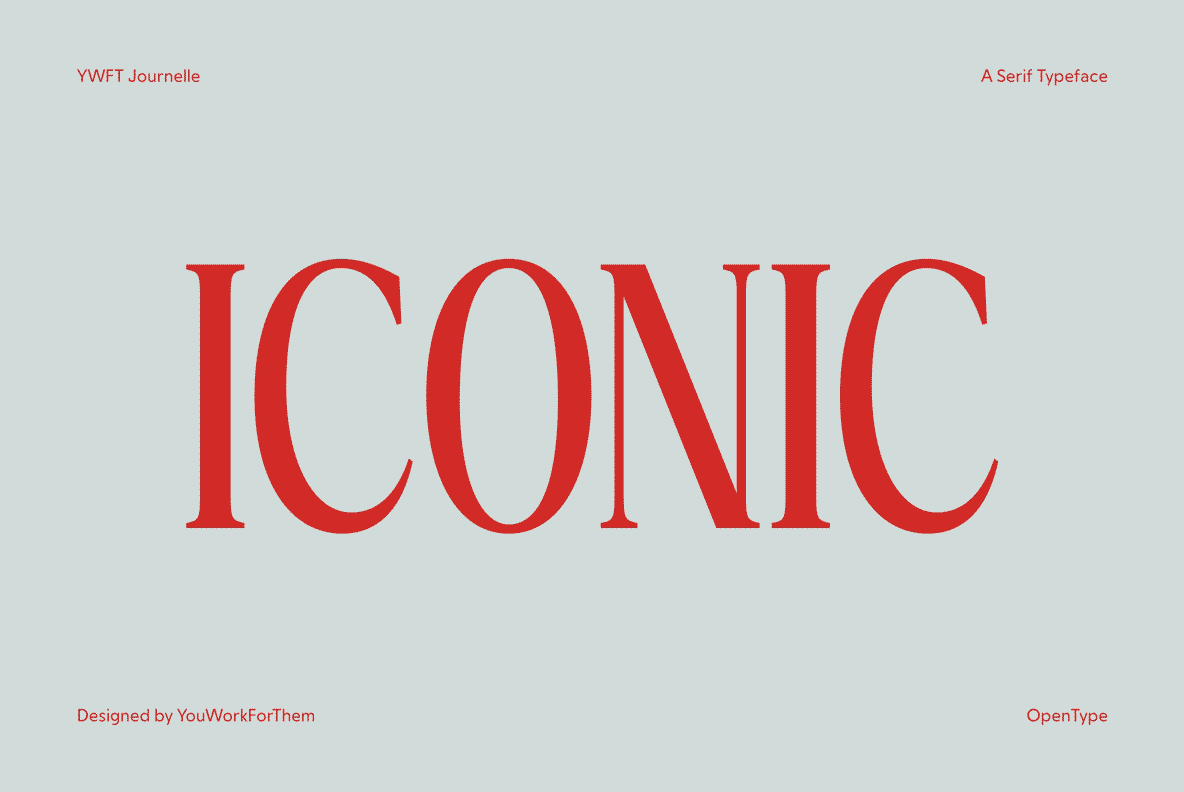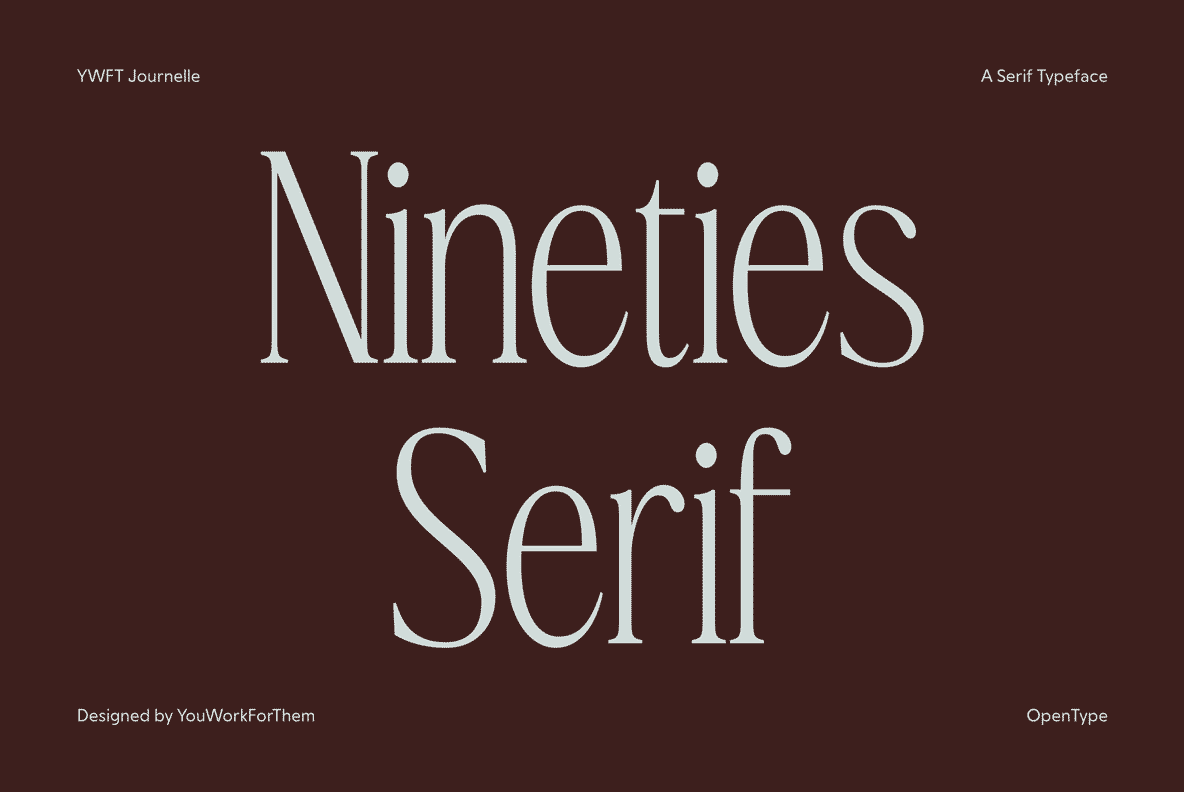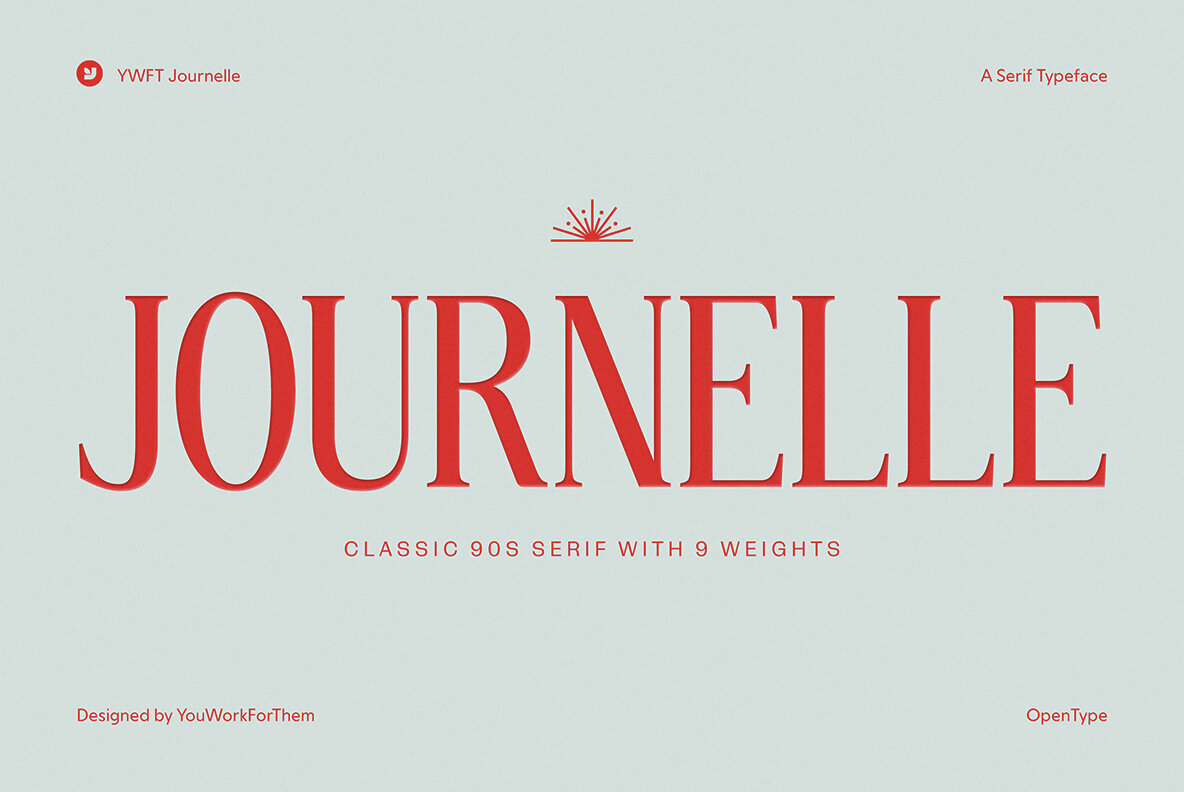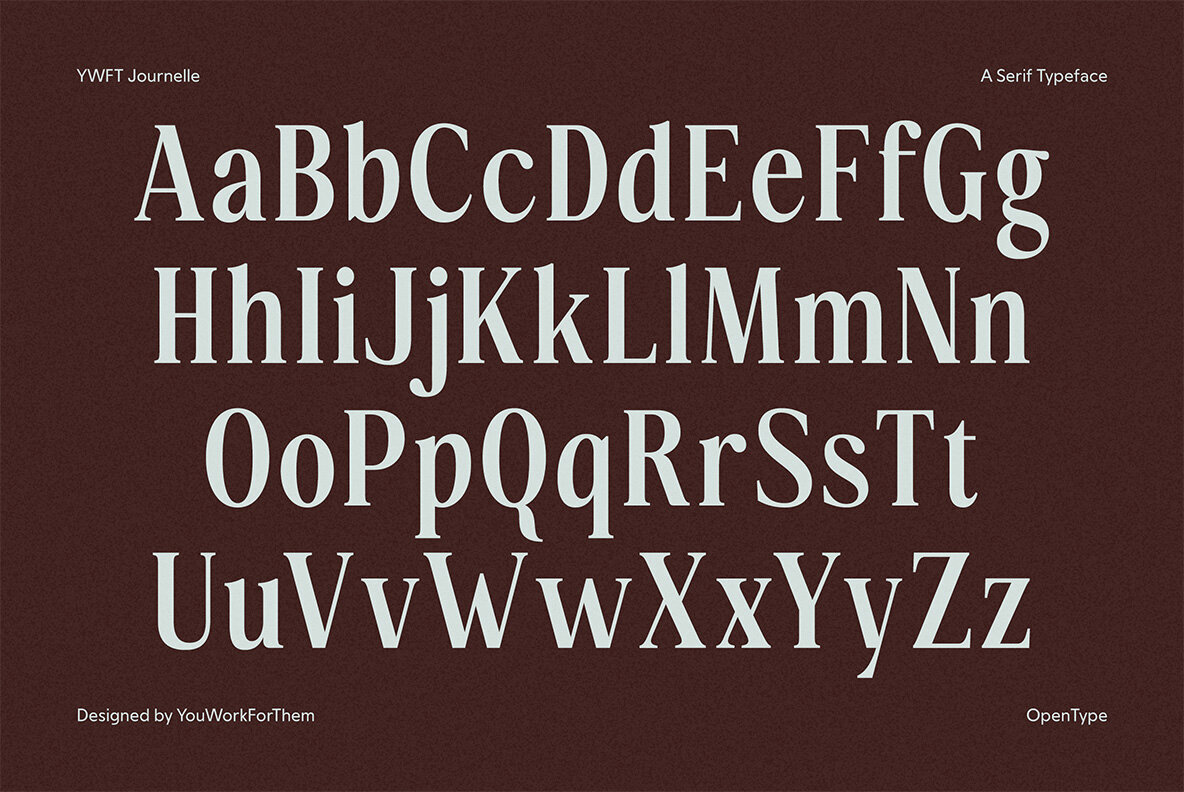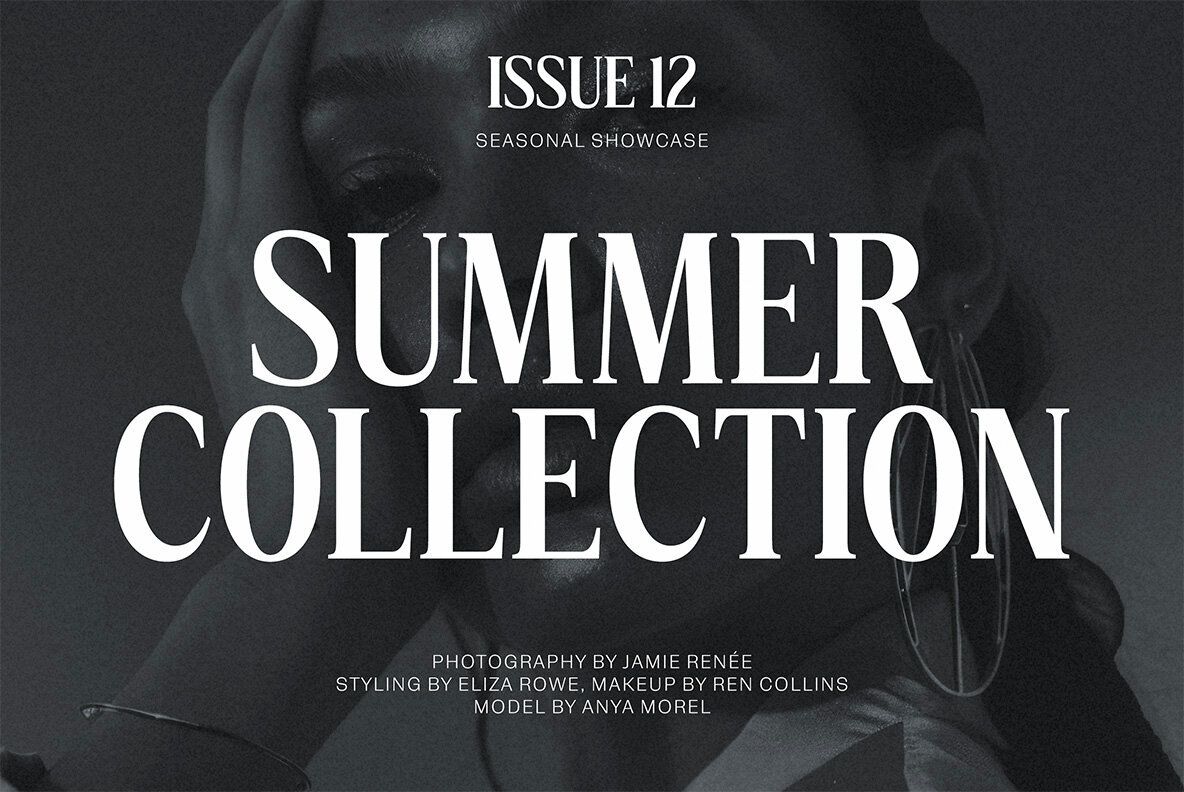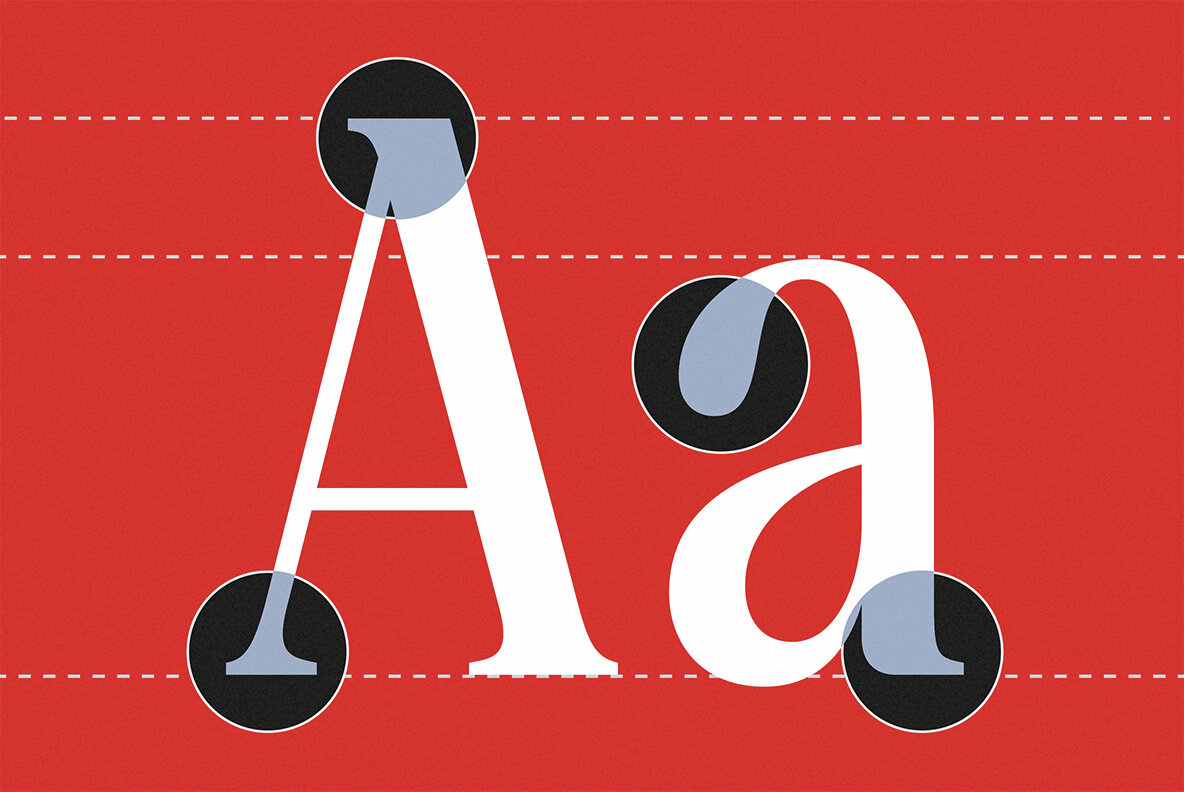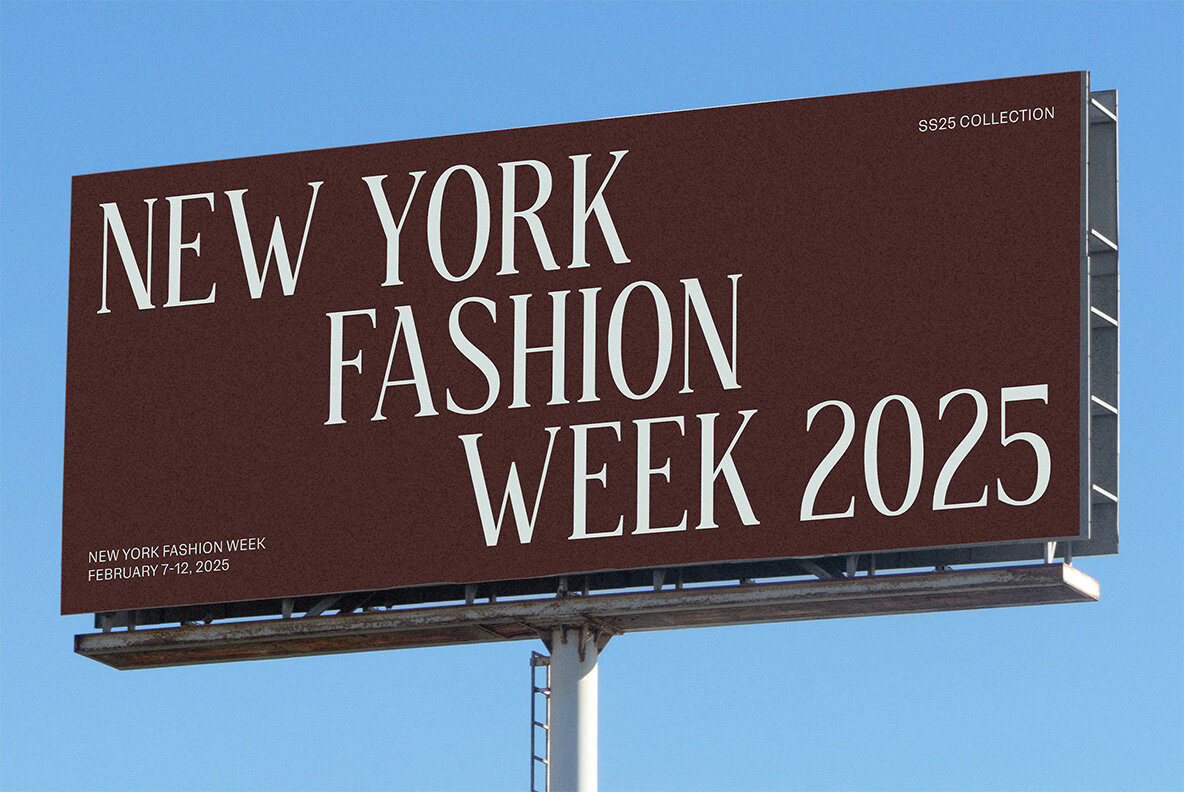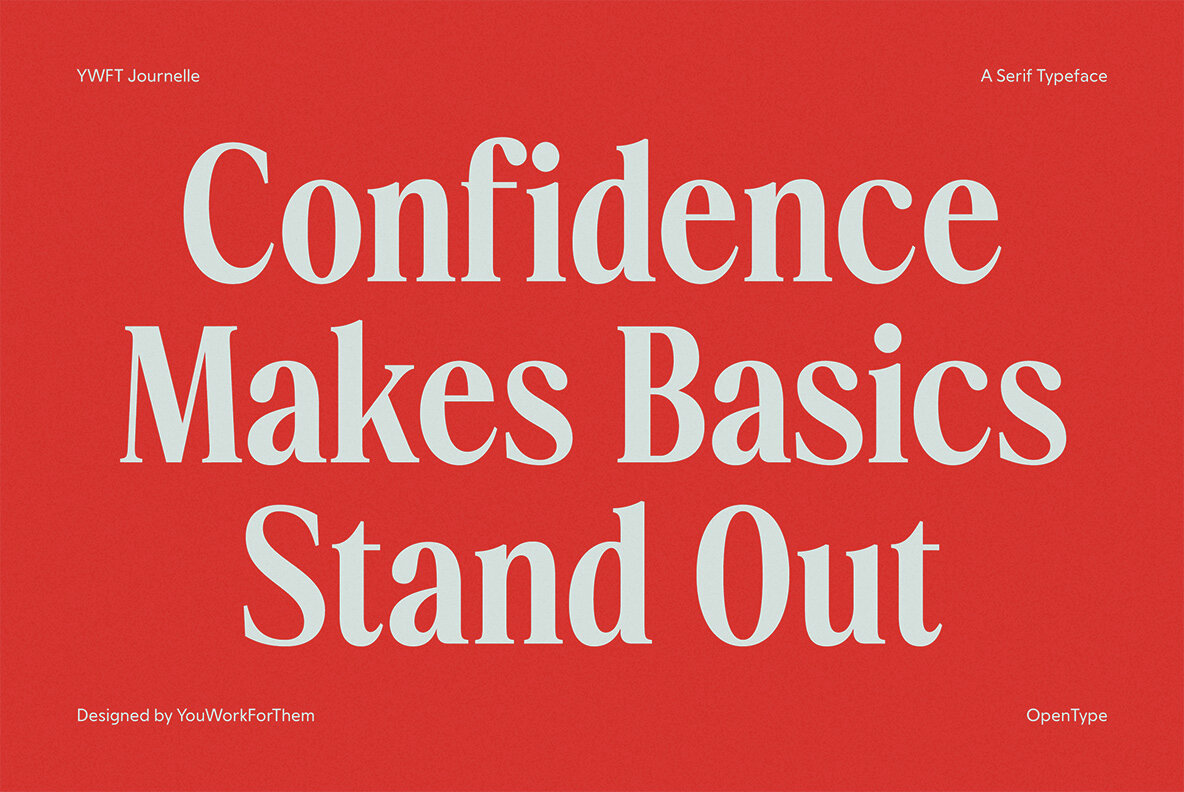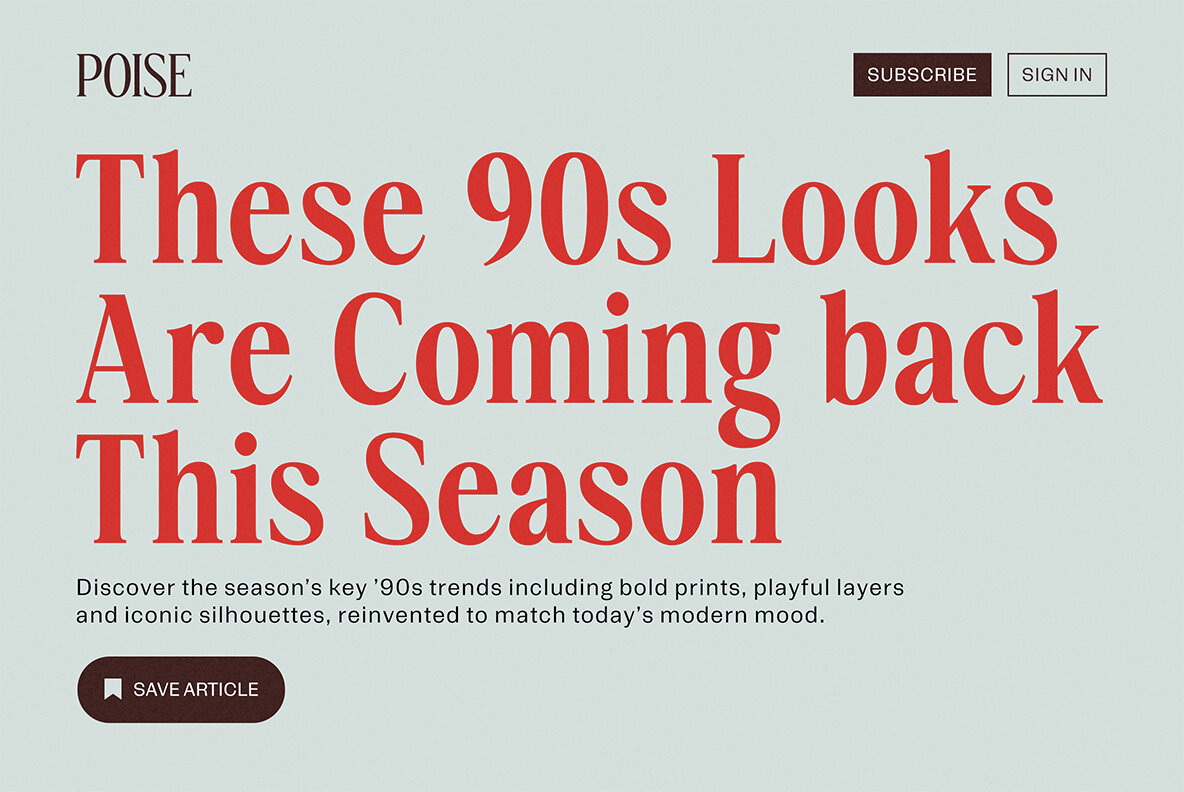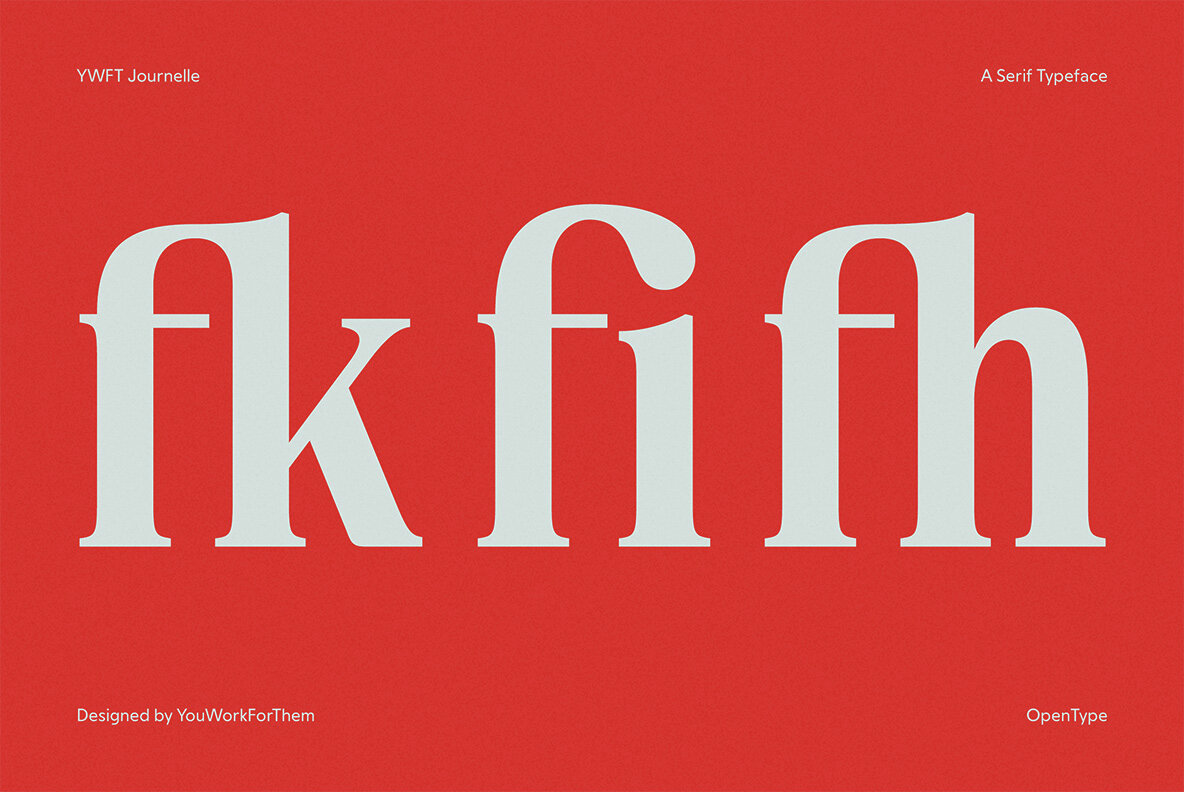
YWFT Journelle Font
YWFT Journelle is an exclusive YouWorkForThem creation, a condensed serif type family crafted in 2025 for the modern design landscape. Unlike many classic serif fonts originally built for print and retrofitted for screens, Journelle was designed from the ground up for digital use. It delivers the precision, clarity, and scalability that today's branding and UI work demand. With nine distinct weights, each offering 375 meticulously drawn glyphs, the family includes advanced OpenType features like Contextual Alternates, Discretionary Ligatures, Glyph Composition/Decomposition, Localized Forms, and Standard Ligatures. This ensures typographic flexibility whether your work calls for nuanced editorial layouts or commanding display treatments. Journelle draws inspiration from the sleek, high-contrast typography of 1990s fashion magazines, where elegance was always paired with a subtle bite of attitude. Its slender proportions and crisp serifs make it ideal for luxury branding, editorial spreads, and fashion-centric projects that want to feel both retro and relevant. Other platforms often charge ongoing subscription fees or inflated annual rates. Journelle avoids that. YouWorkForThem offers simple, one-time licensing—personal, commercial, or enterprise—at a fraction of what most type platforms require. It's a sustainable solution for design teams and agencies who want quality without recurring costs. What separates Journelle is its intent. This isn’t a revival or a digitization of a print relic, it’s a font conceived specifically for the fluid, screen-first reality of contemporary design. For teams who want classic character without outdated baggage, it delivers the polish and function without the premium overhead. Additional products used for slideshow images:YWFT Journelle: A Digital-First Serif for Fashion and Modern Branding
Aesthetic Roots: 90s Fashion Meets Contemporary Edge
YWFT Journelle thrives in:
Why It’s a Distinct Font